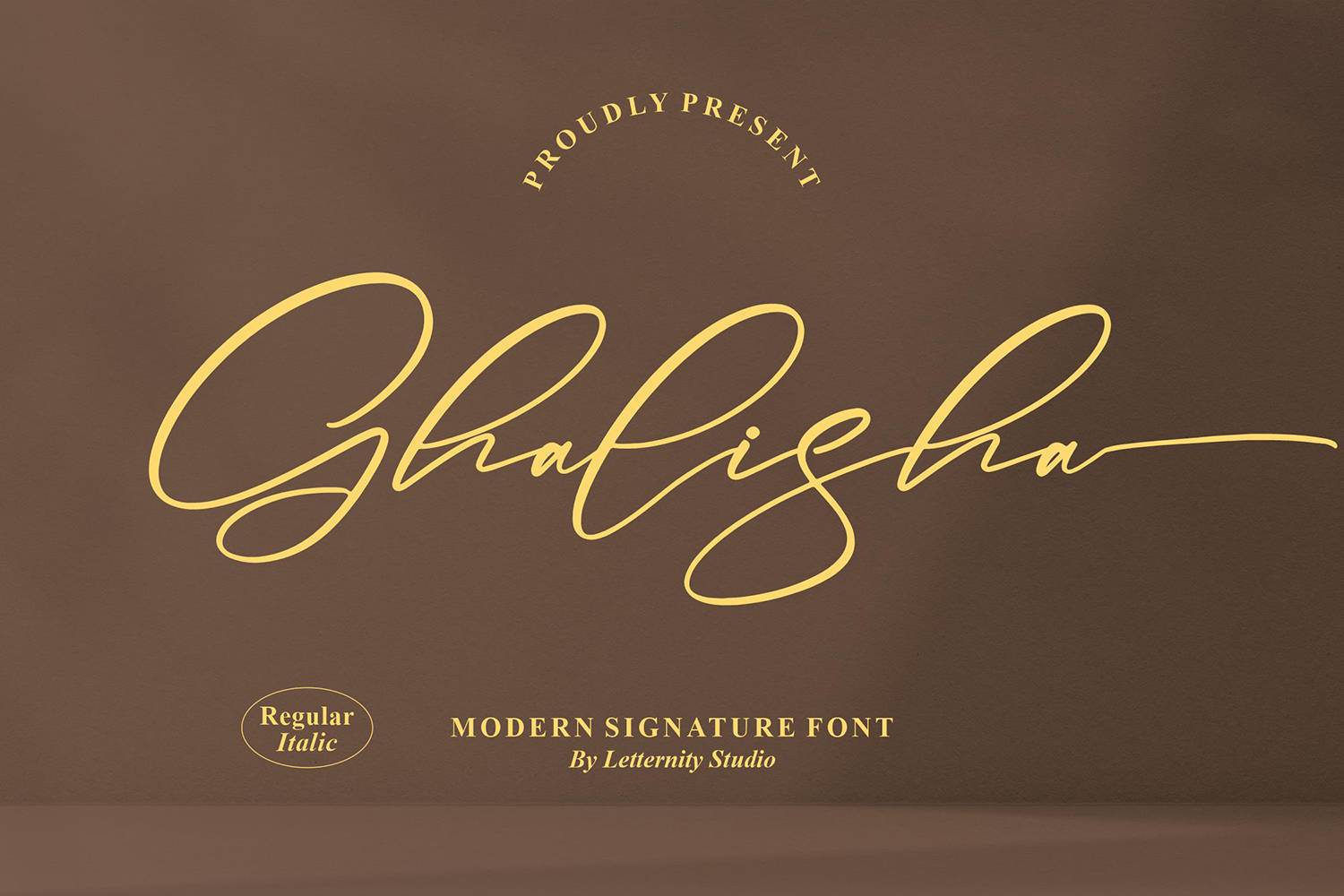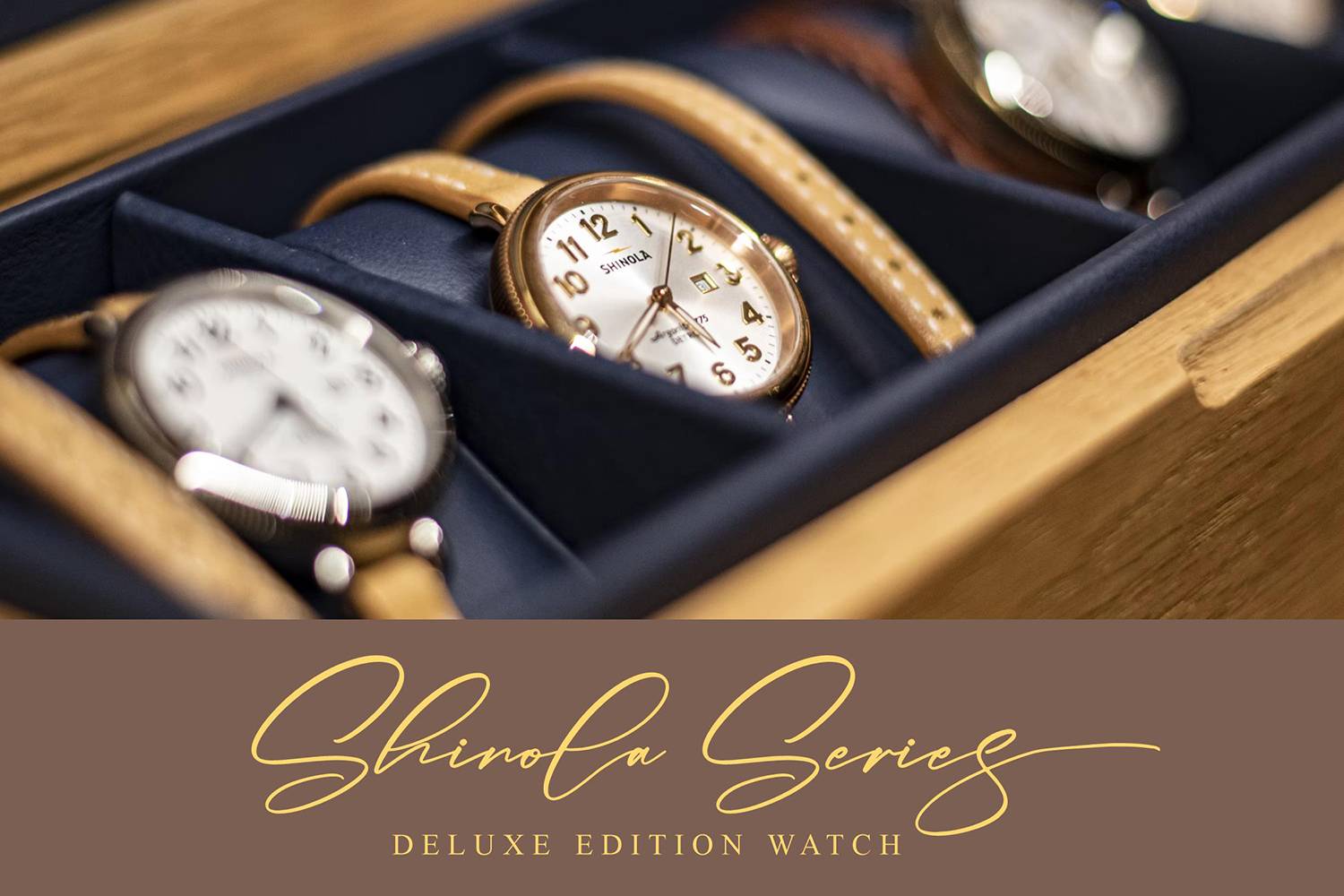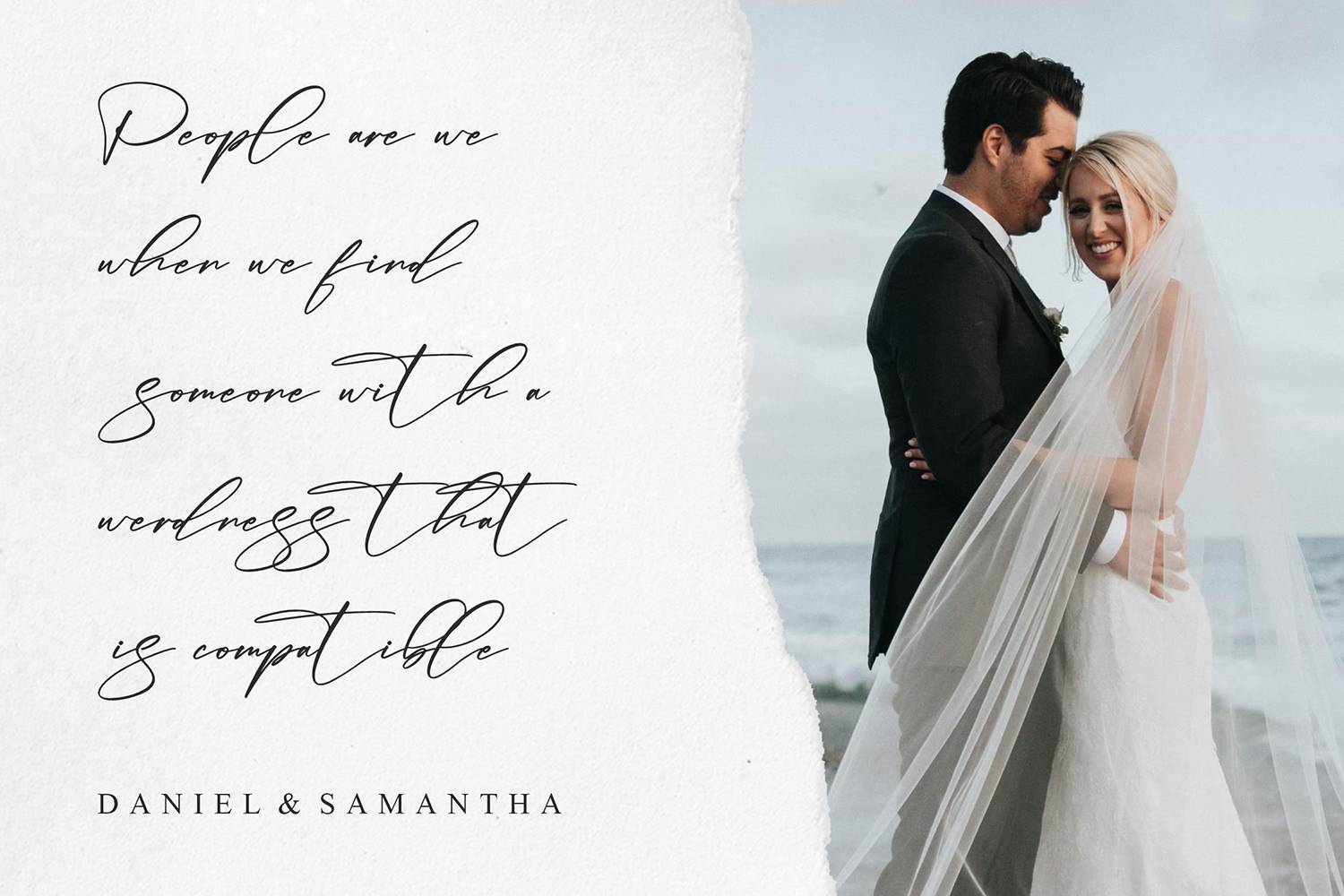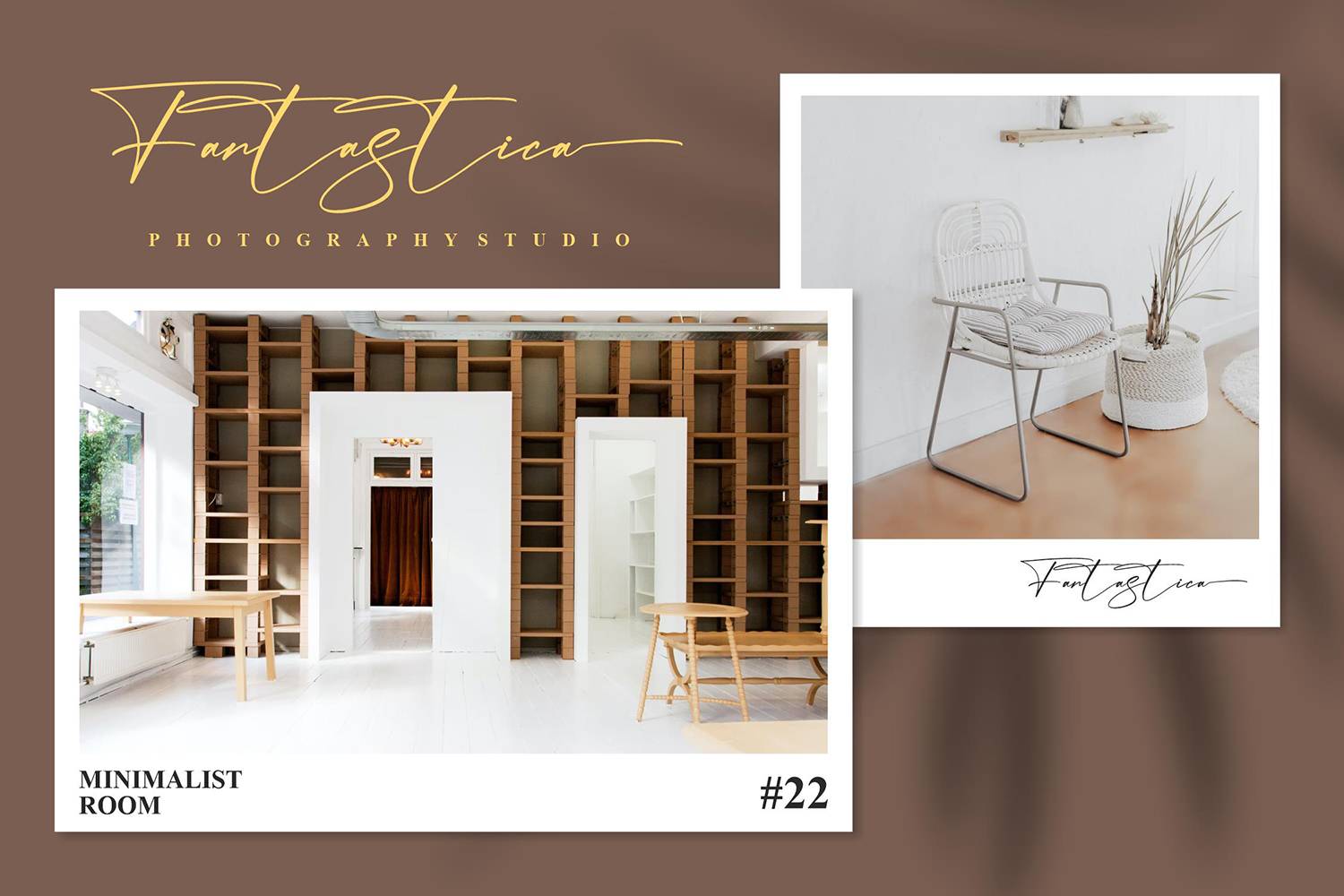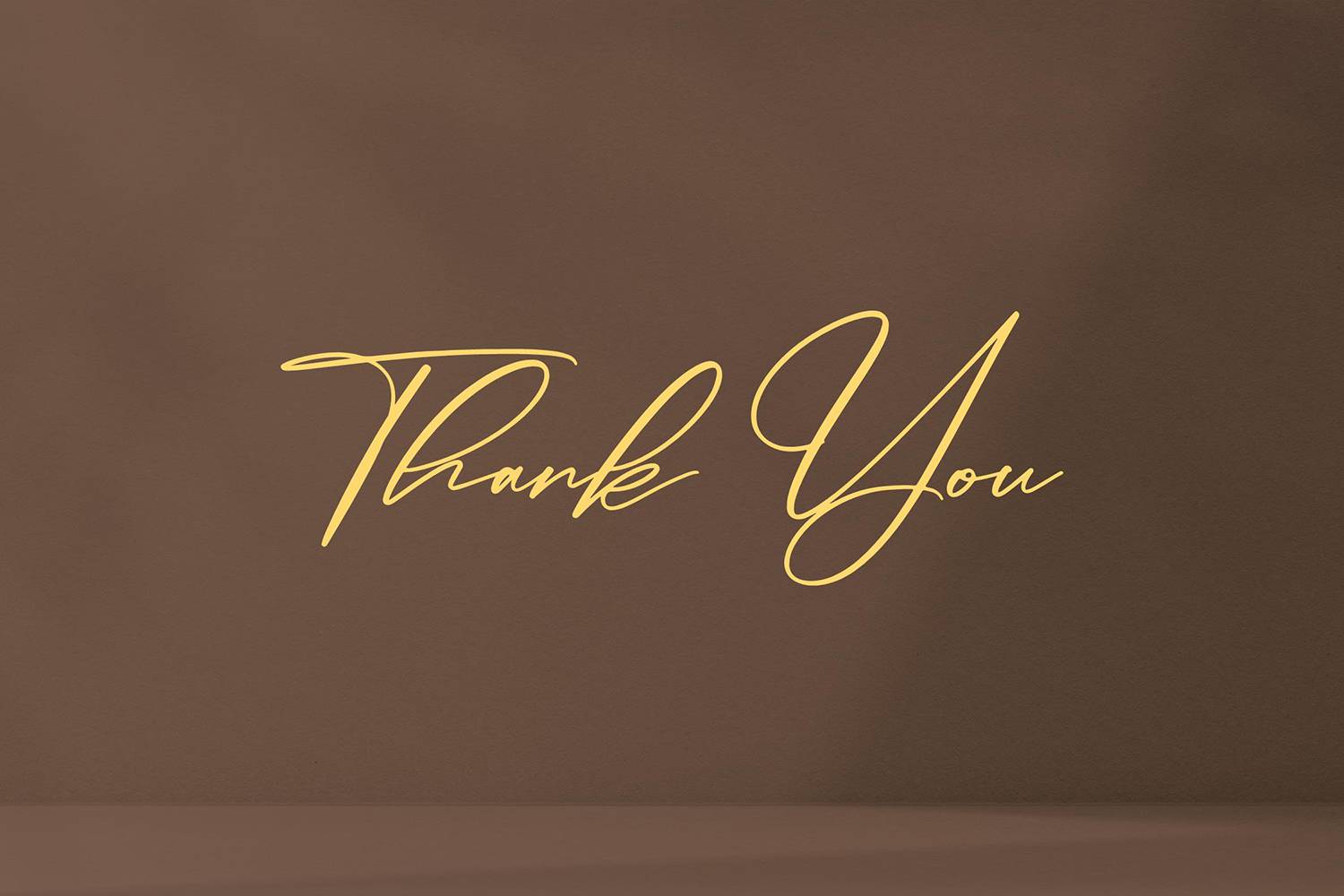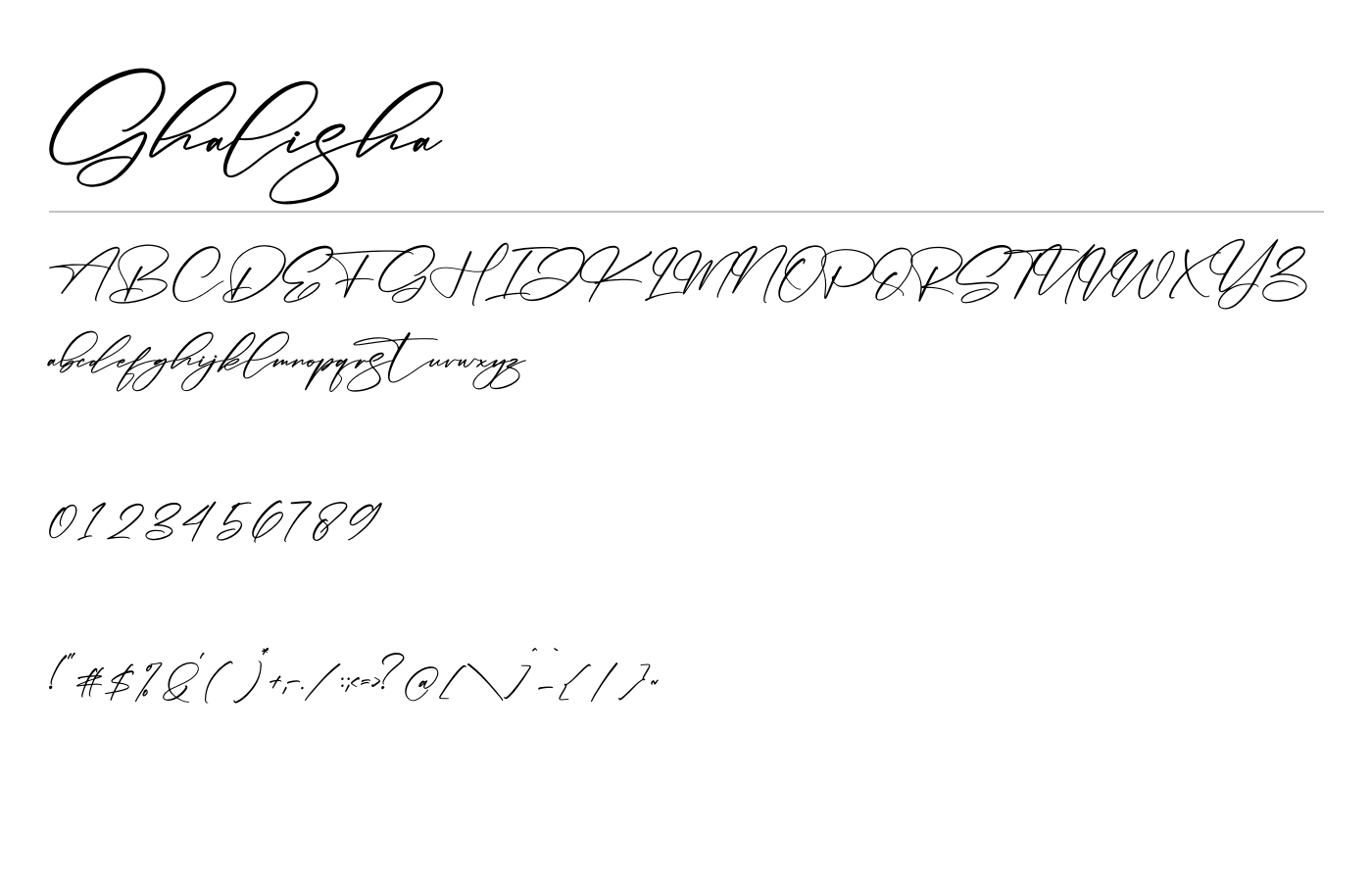
Ghalisha is an elegant, handwritten script font featuring delicate, flowing strokes with high contrast between thin and slightly thicker lines. Its airy, sophisticated style and graceful letterforms make it perfect for luxury branding, wedding invitations, and refined editorial design, adding a personal and stylish touch wherever used.
Ghalisha Font
About Ghalisha Font